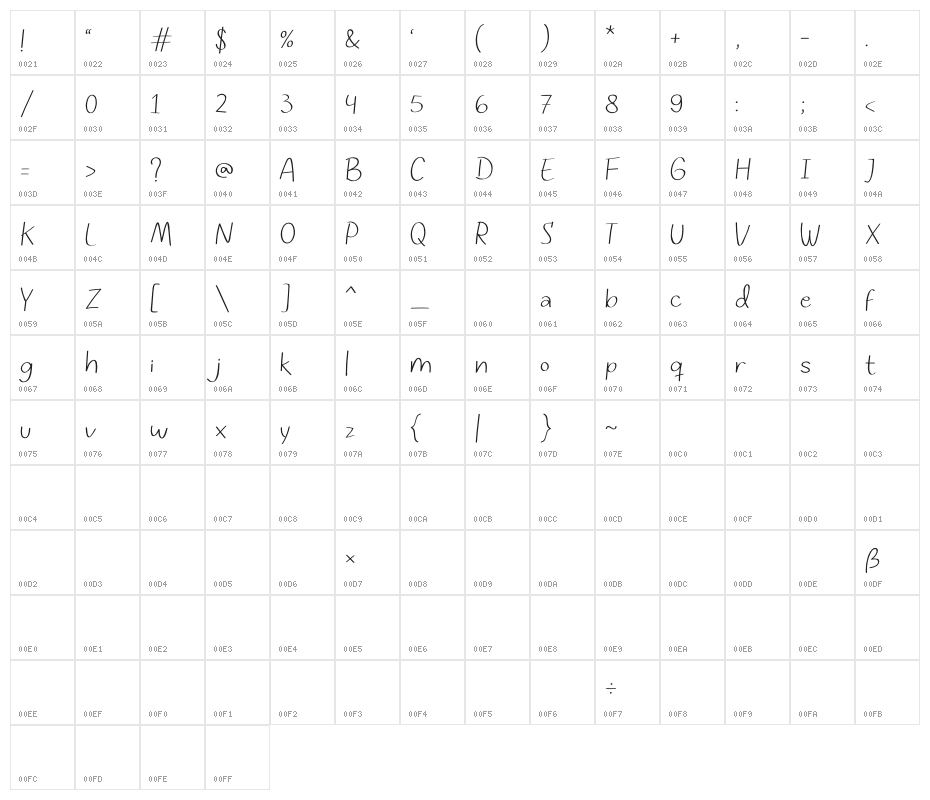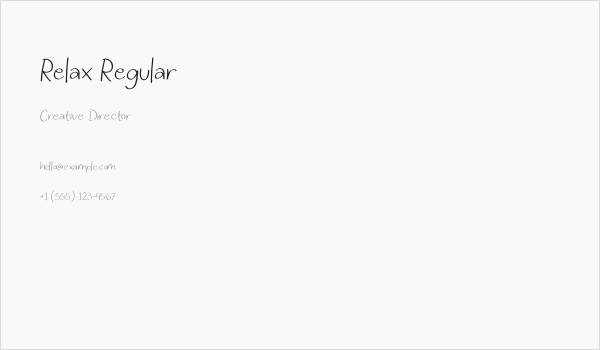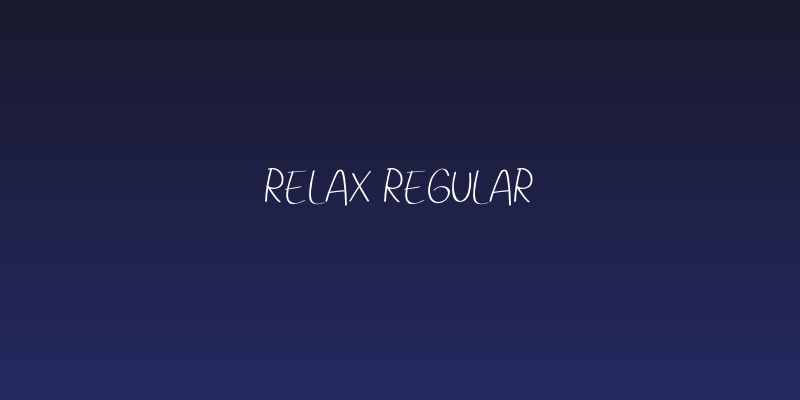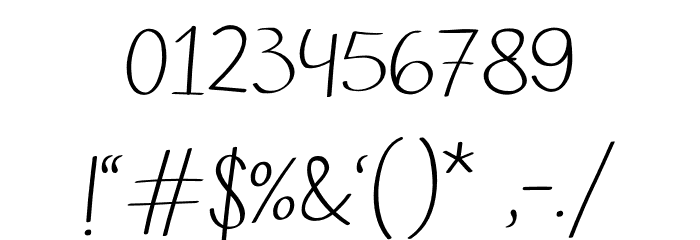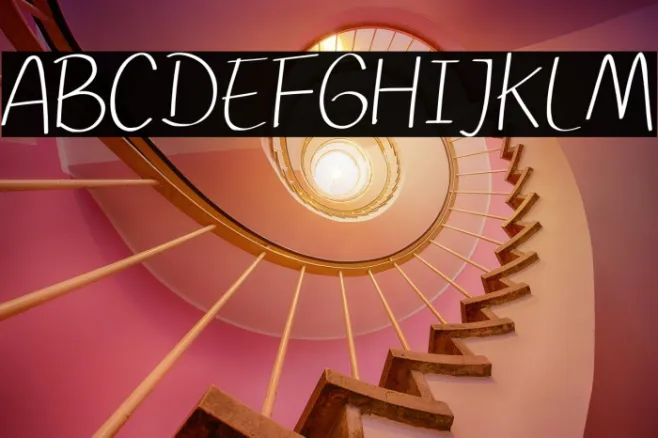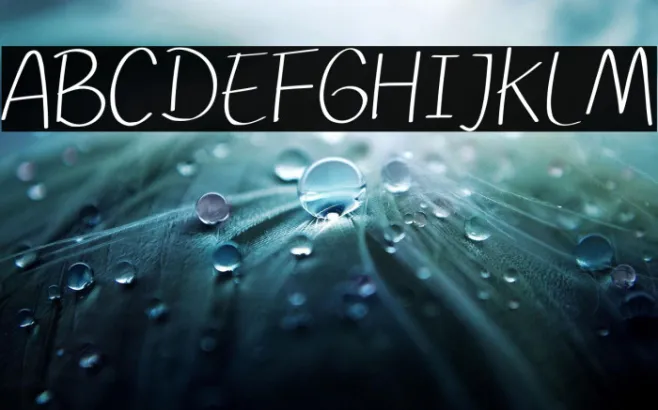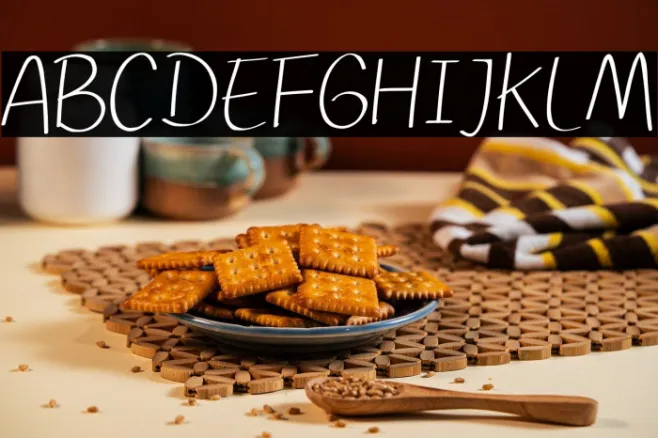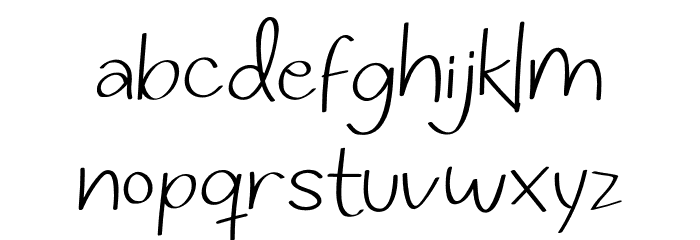
Relax Regular Font
Relax Regular Description
This font features a casual and relaxed handwritten style, characterized by smooth, flowing lines and a slightly irregular baseline that adds a touch of playfulness. The uppercase letters are tall and slender, with a gentle curve that gives them an approachable feel. The lowercase letters maintain a consistent style, with rounded edges and a natural, easy-going appearance. Numbers and special characters are crafted with the same fluidity, ensuring a cohesive look across all text. The overall design is clean and legible, making it suitable for a variety of informal and creative applications.
| Use Case | Headlines, Invitations, Personal Branding |
| Proposed Projects | Ideal for greeting cards, invitations, personal branding, and creative projects that require a friendly and approachable touch. |